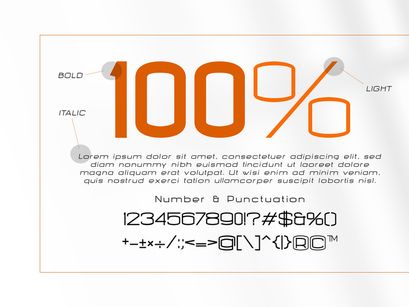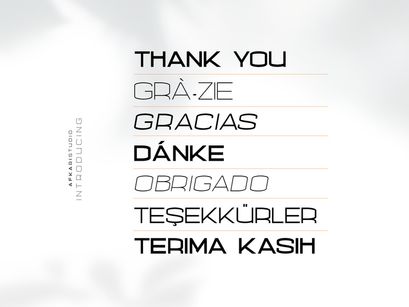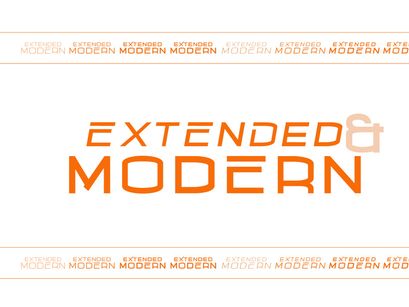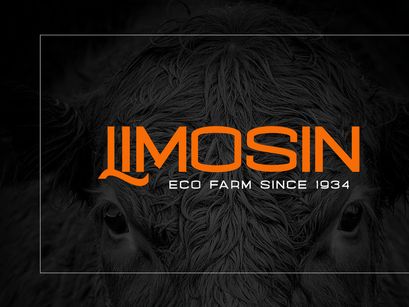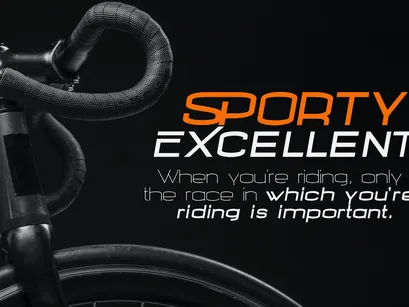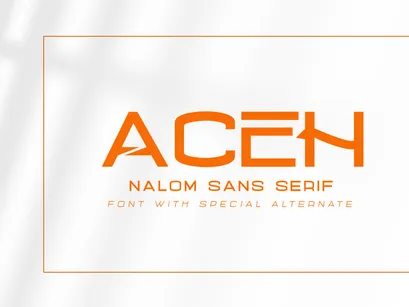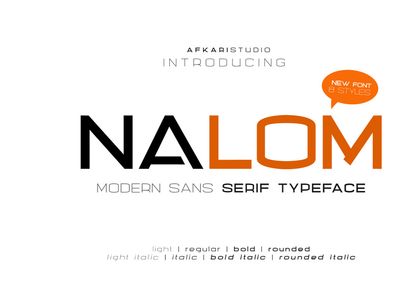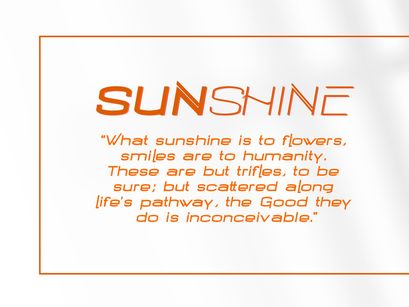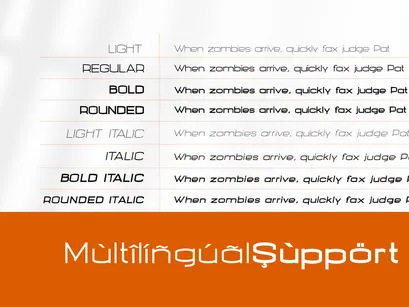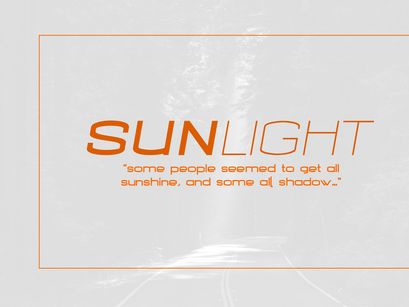
Nalom Sans Serif Typeface Font Family
Nalom-ItalicRounded
Nalom-BoldItalic
Nalom-Italic
Nalom Sans Serif
Nalom-Bold
Nalom is a modern sans serif typeface font family . The family consists of 8 weights; light, regular, bold, rounded, italic, light italic, bold italic, and rounded italic. It comes in uppercase and lowercase with special alternates and ligatures. This modern family font are great for user interfaces, logotypes, short text, long text, magazines etc.
Features;
• 8 Weights; Nalom Light, Nalom Light Italic, Nalom Regular, Nalom Italic, Nalom Bold, Nalom Bold Italic, Nalom Rounded, Nalom Rounded Italic.
• Uppercase, Lowercase, Number, and Punctuation
• Mültîlíñgúãl Sùppört for; ä ö ü Ä Ö Ü ß ¿ ¡